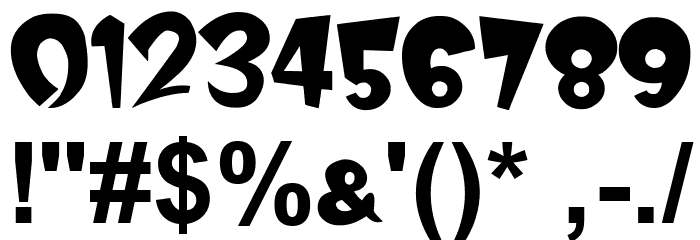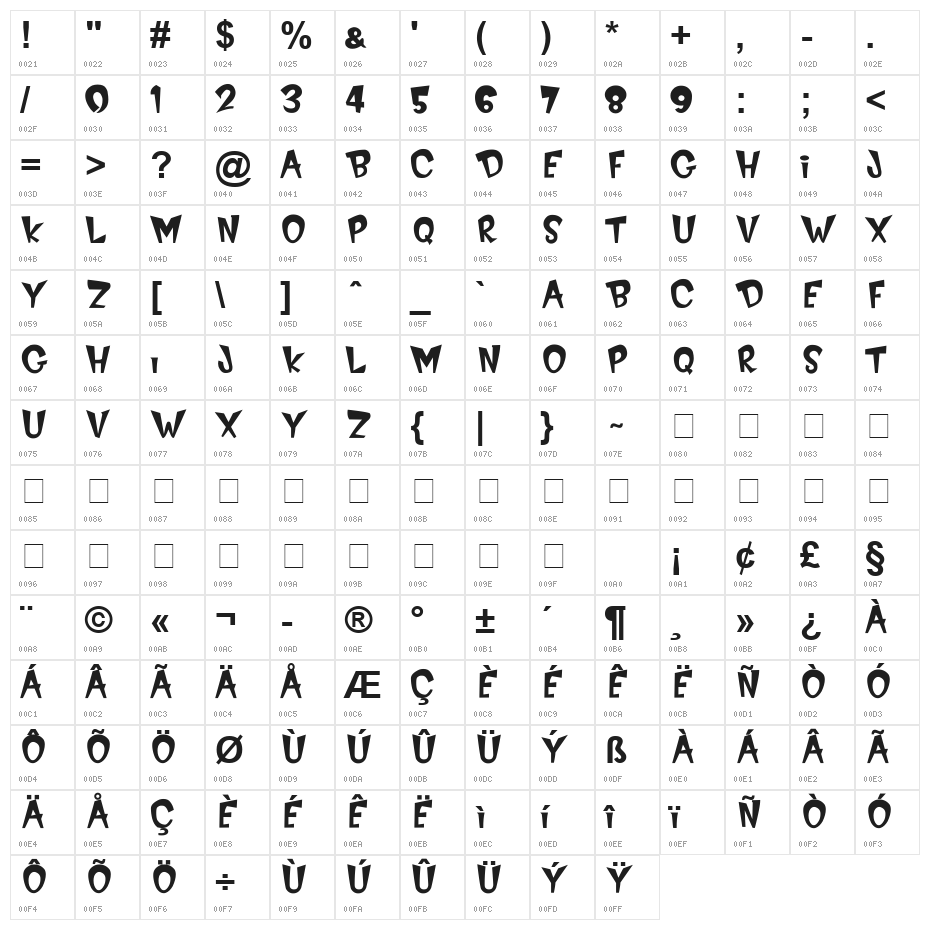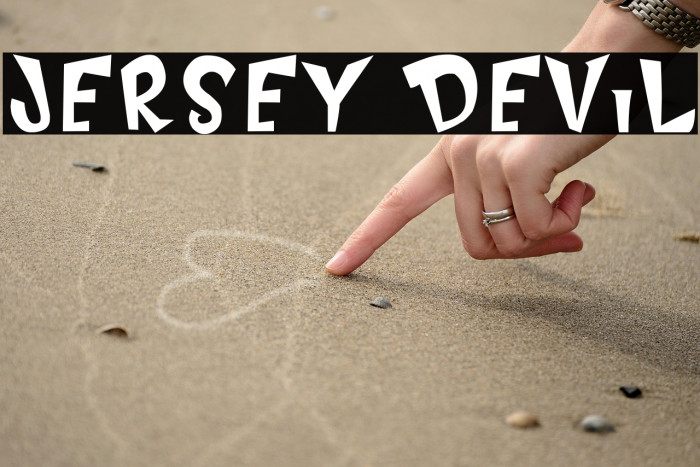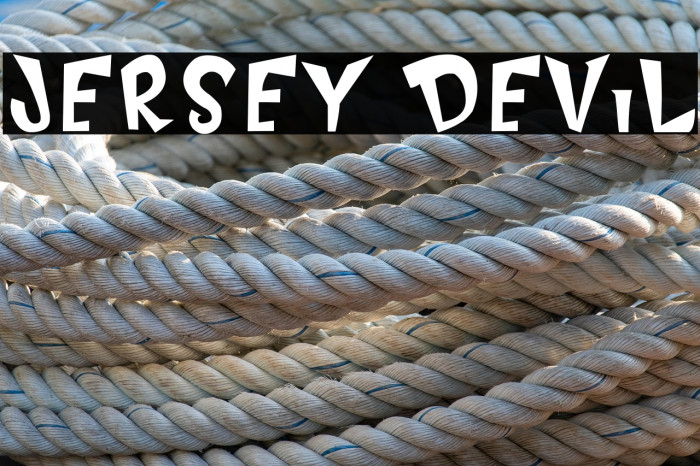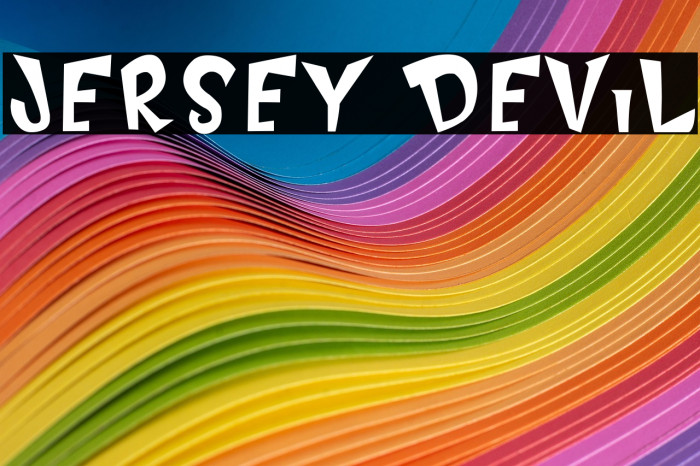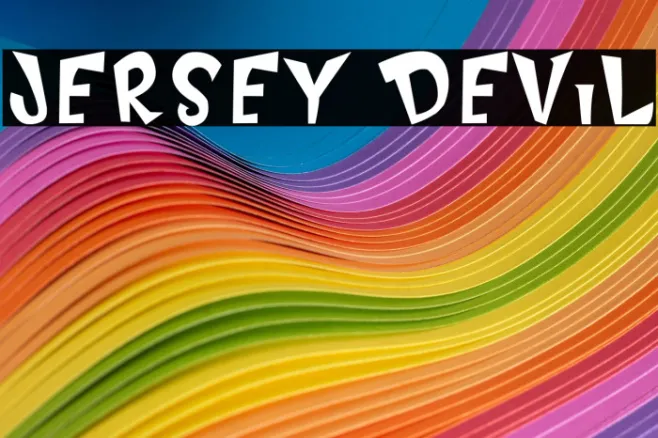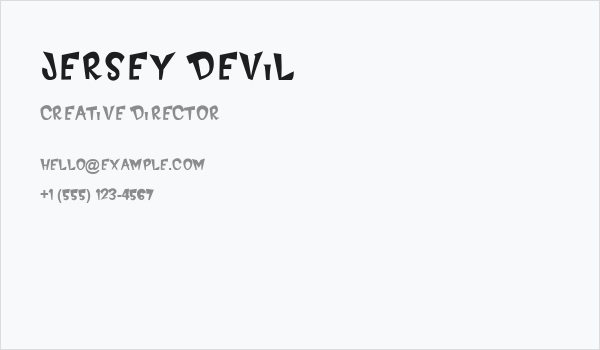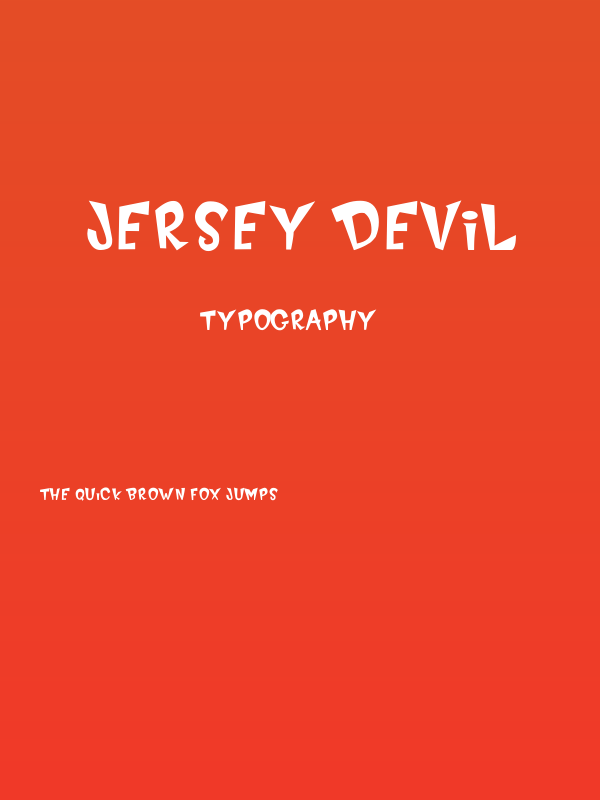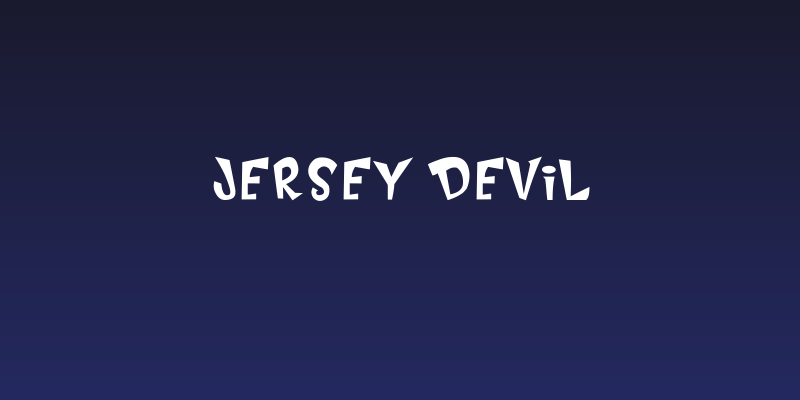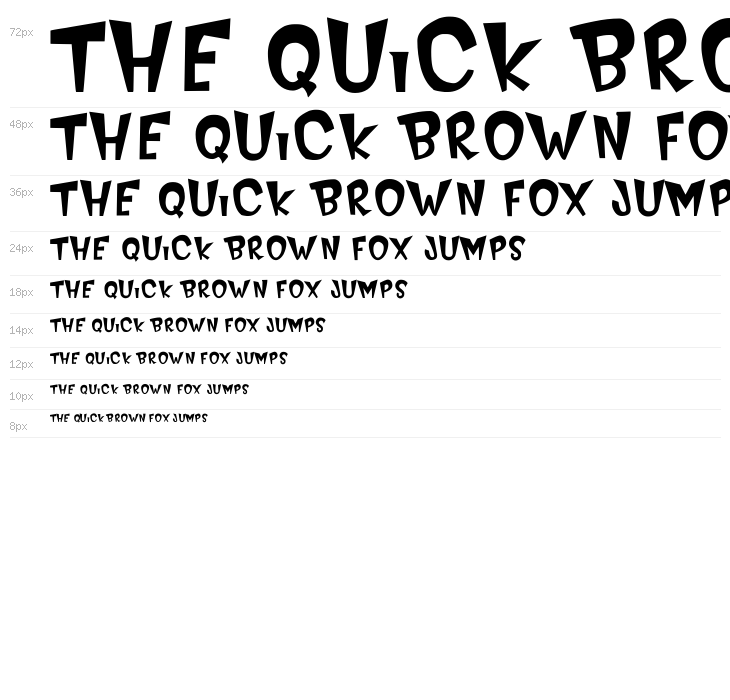
Jersey Devil Font
Jersey Devil Description
This font features a playful and bold design with a quirky, hand-drawn aesthetic. The letters are characterized by uneven strokes and varying thickness, giving them a lively and dynamic appearance. The uppercase and lowercase letters share a consistent style, with exaggerated curves and angles that create a sense of movement. The numbers and special characters maintain this whimsical style, making the font suitable for creative and informal applications. Its unique personality makes it stand out, ideal for projects that require a touch of fun and creativity.